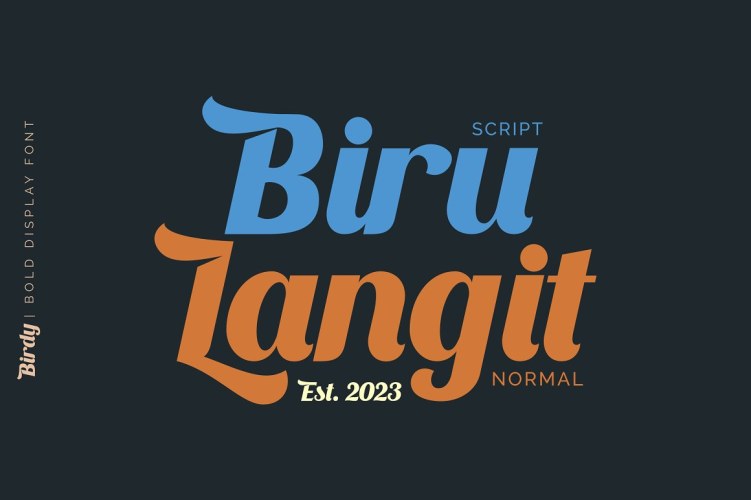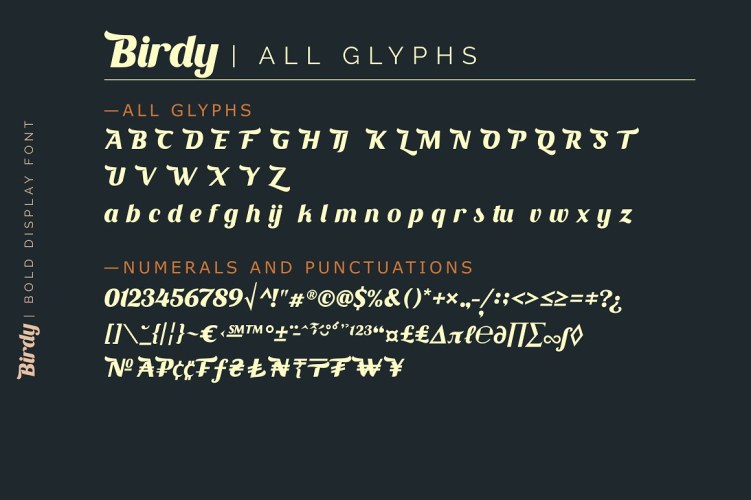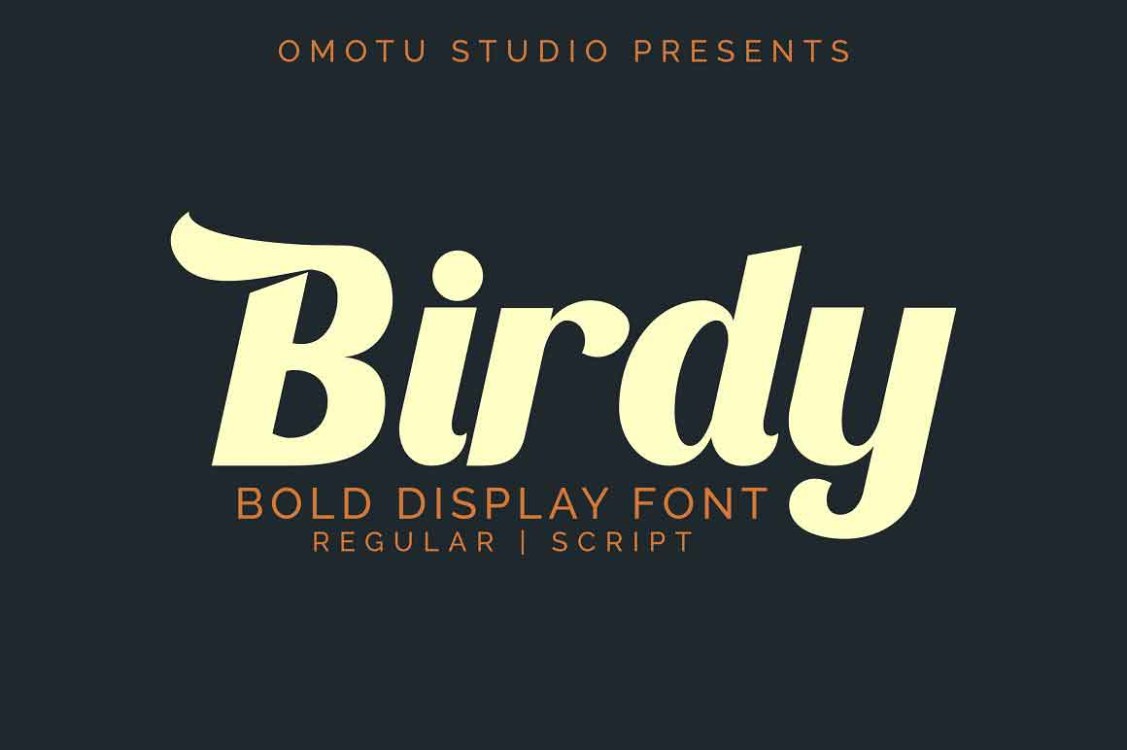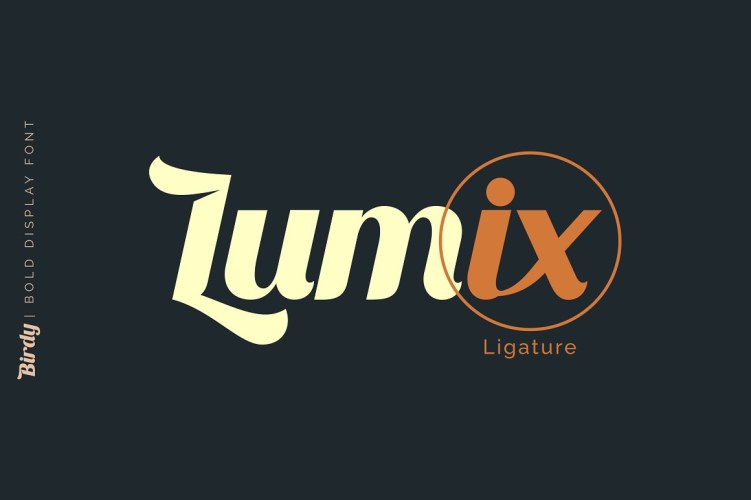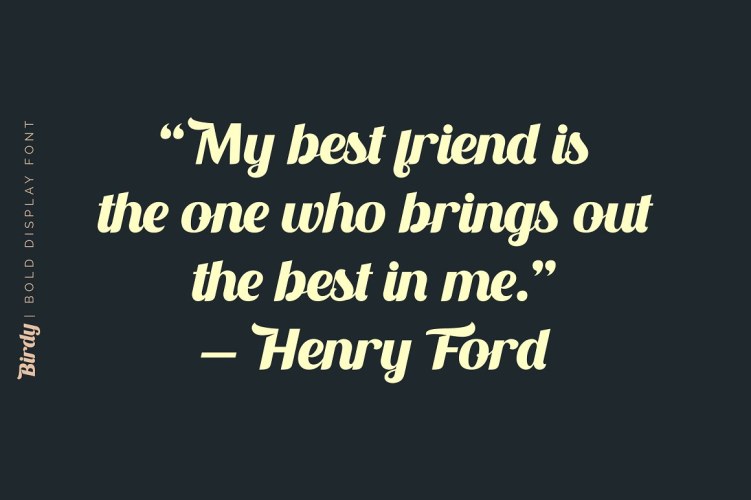
Birdy Font
Birdy is an elegant bold script font with retro look. Comes with 2 styles, regular and script. Great for heading, logotype, branding, packaging design, poster design, we…
Birdy is an elegant bold script font with retro look. Comes with 2 styles, regular and script. Great for heading, logotype, branding, packaging design, poster design, website/display, editorial, headline, advertising, and more.
Where Birdy Font works best
Birdy Font brings a personal, handwritten warmth to invitations, menus and place cards.
Craft brands — coffee, cosmetics, bakery — use scripts like Birdy Font for signature-style logos and labels.
Pair Birdy Font with a plain sans for quotes, stories and Pinterest pins that feel handmade.
What is Birdy Font good for?
Birdy Font is a Script And Handwritten typeface tagged Bold, Branding, Editorial, Elegant. It works well for headlines, logos, posters, social media graphics and branding projects that need a distinctive script and handwritten look.